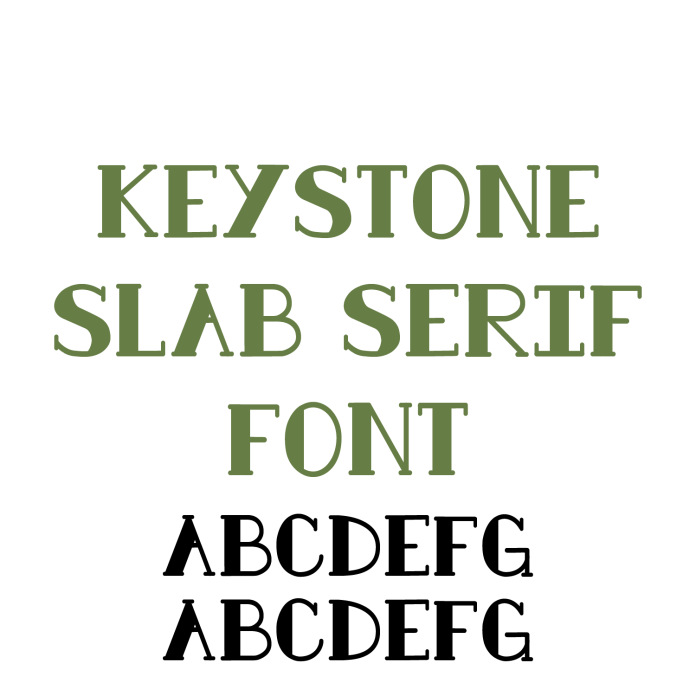
Keystone Slab Serif Font is a bold, all-uppercase typeface with strong, clean lines and distinctive slab serifs. Designed to command attention, this display font is perfect for logos, signage, branding, and standout headlines. Its classic yet modern look makes it a versatile choice for vintage designs, western-style projects, editorial layouts, and high-impact posters. Ideal for crafters, graphic designers, and creatives looking for a sturdy, eye-catching serif font with a professional edge. Keystone offers consistent letter spacing and crisp outlines, making it great for both print and digital use. Add strength and style to your next design with Keystone.